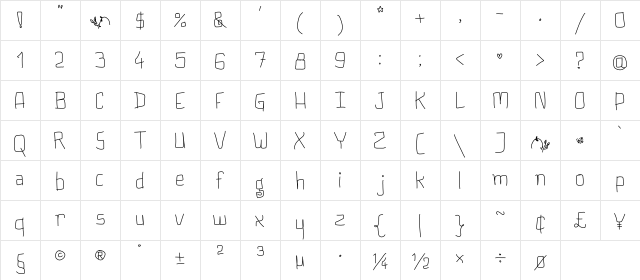
Plumpy But Cute *_ Medium
Design Context for Plumpy But Cute *_
Plumpy But Cute *_ is a composed and adaptable typeface that performs quietly and consistently across a wide range of design contexts.